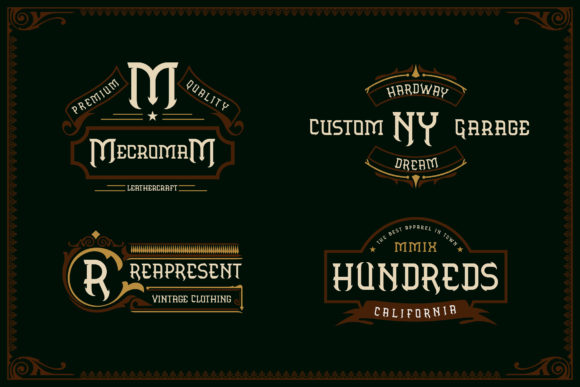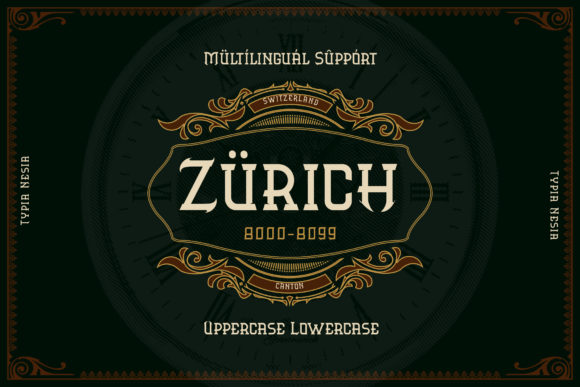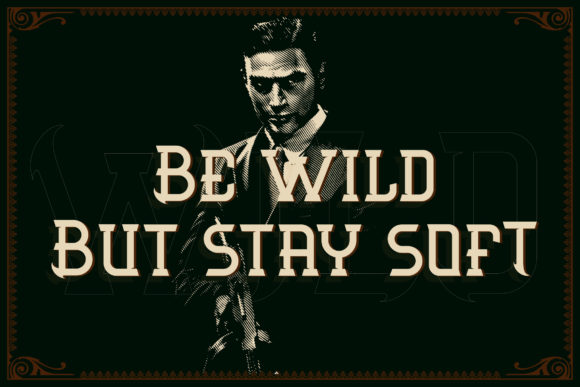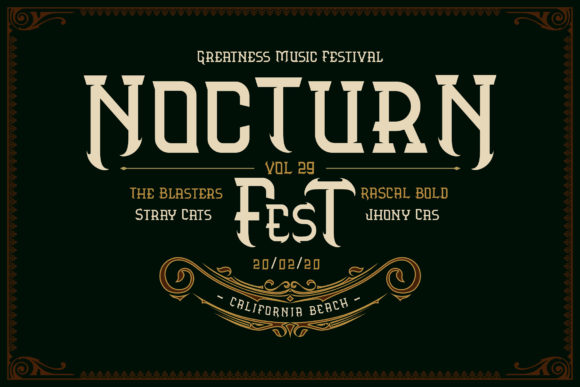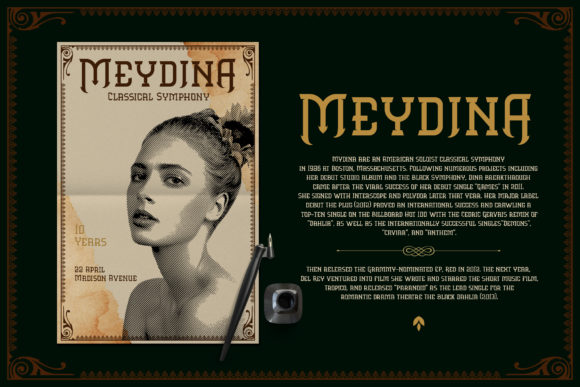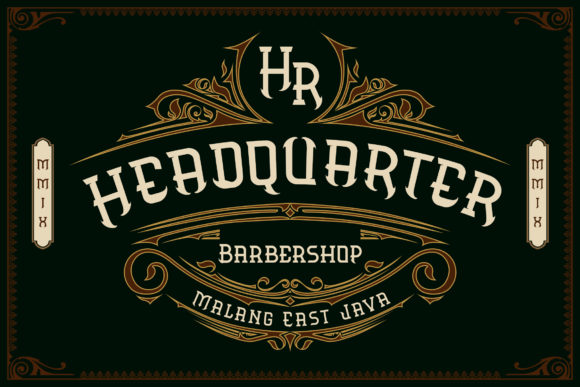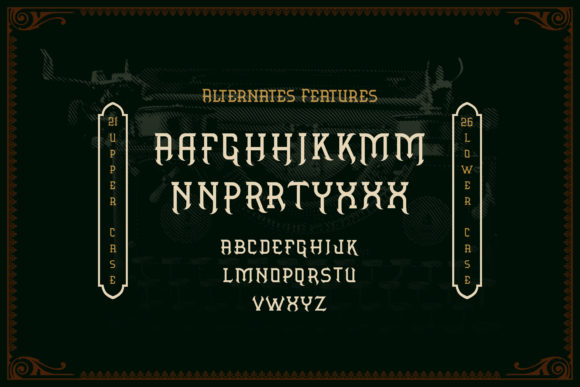
Aronica Font
ARONICA FONT SPECIMEN
Aronica is inspired by classic typography and brings its own unique style to any design project. It feels playfully nostalgic and delivers an incredible vintage aesthetic. Use it to add that special retro touch to any design idea you can think of!